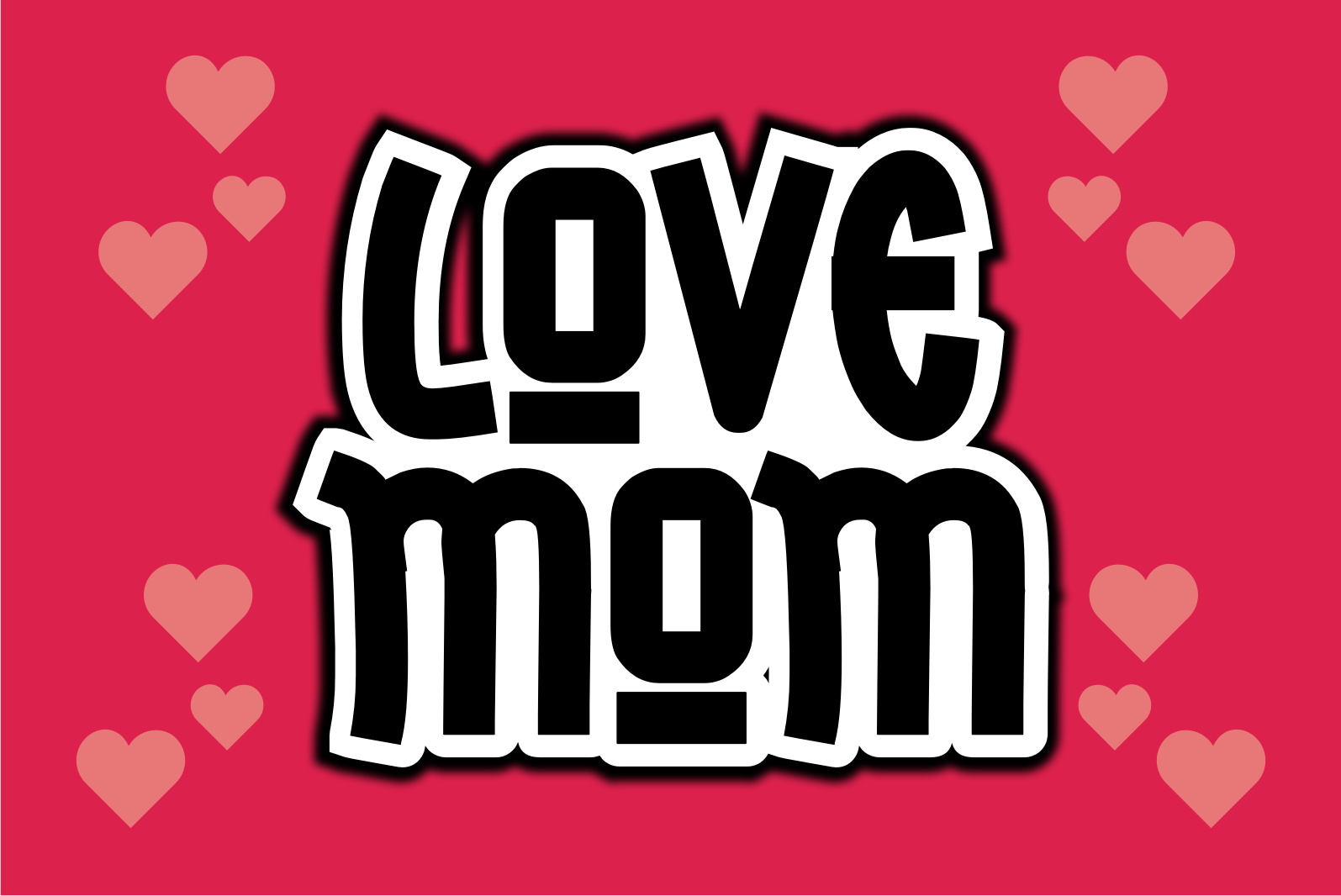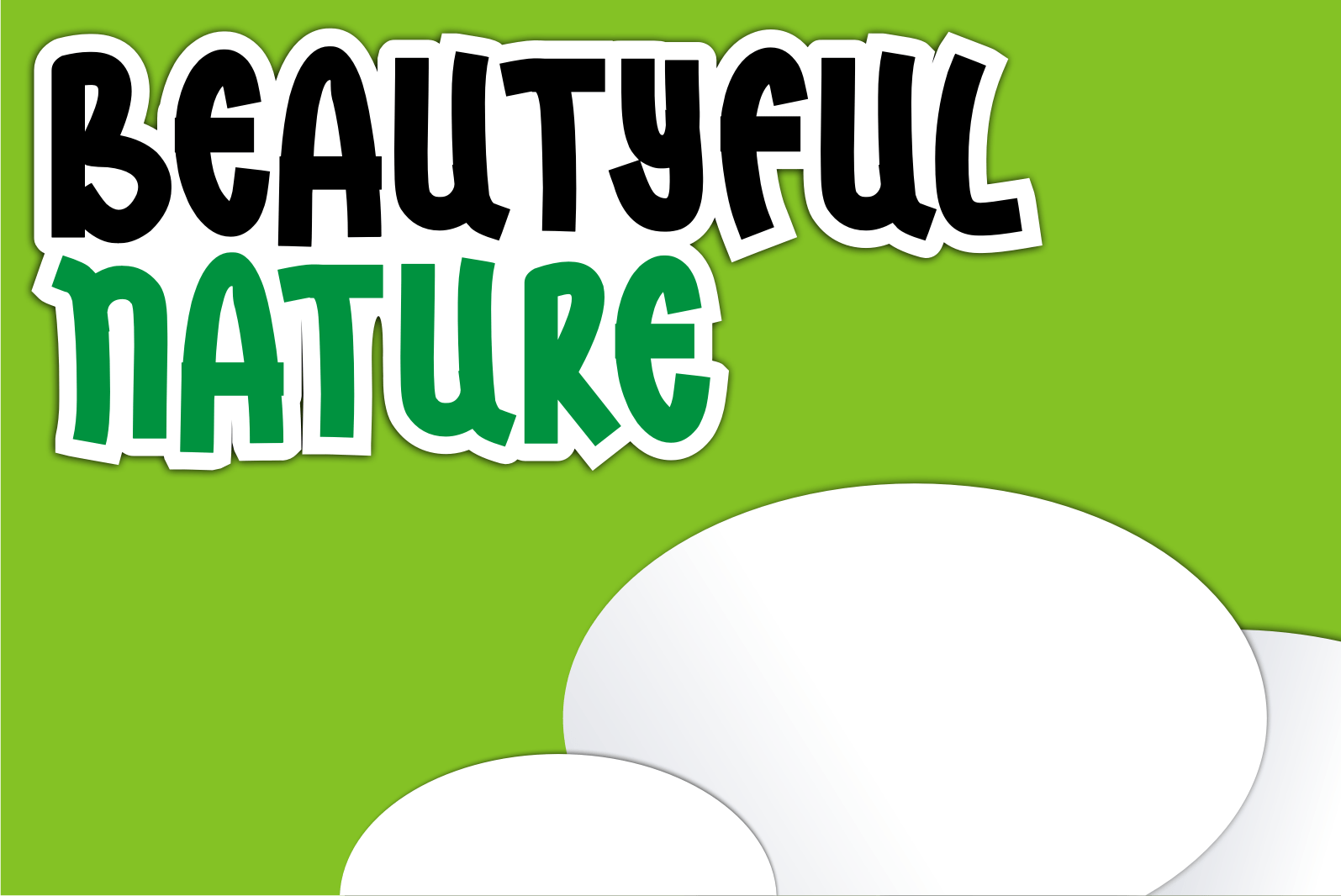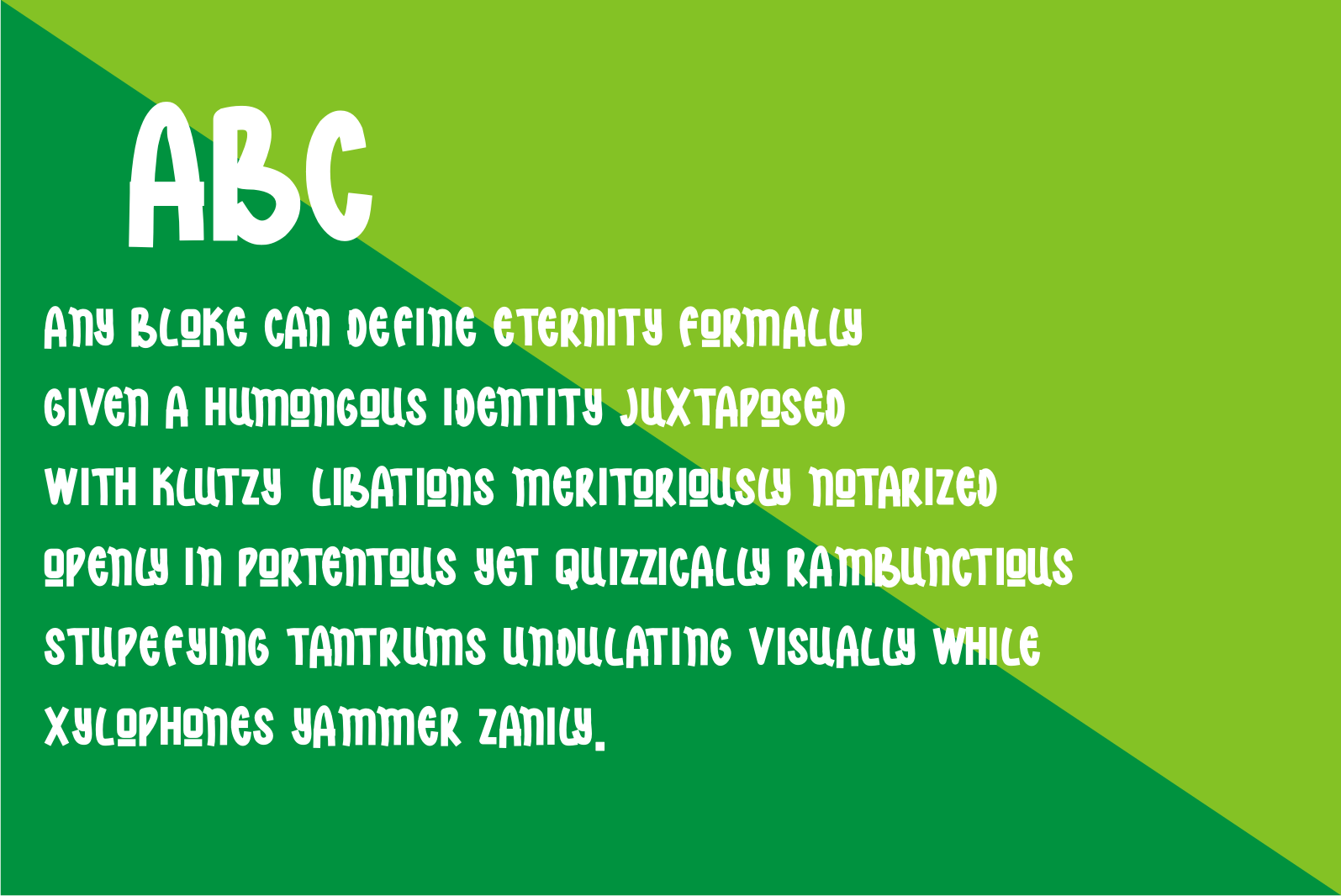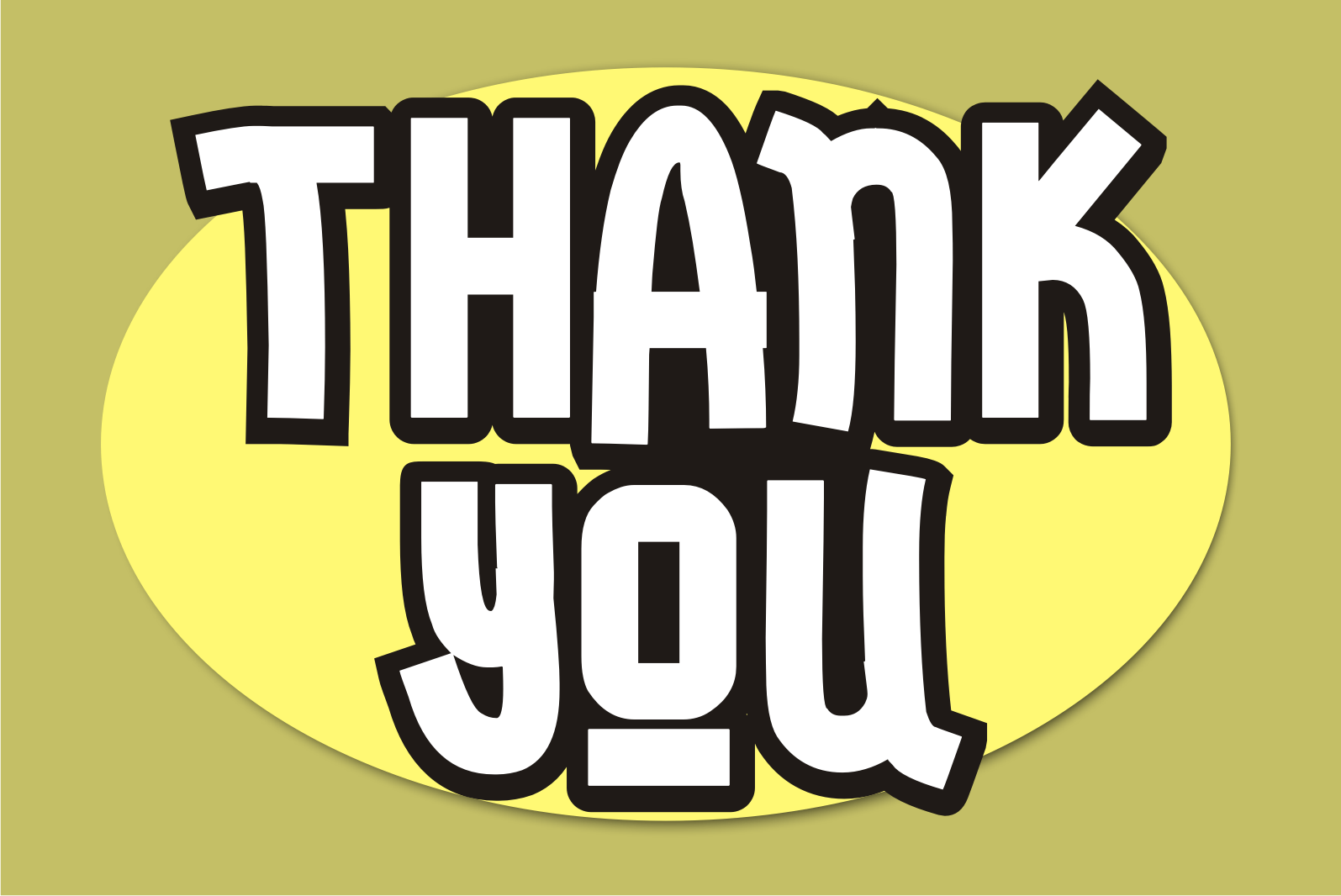
Nolep Erose Font
Nolep Erose Display Font
It’s a cool and trendy-looking display font. This font is great for logos, badges, clothing, posters, and other projects that need to stand out from the crowd. Fall in love with it and bring your designs to the highest level!